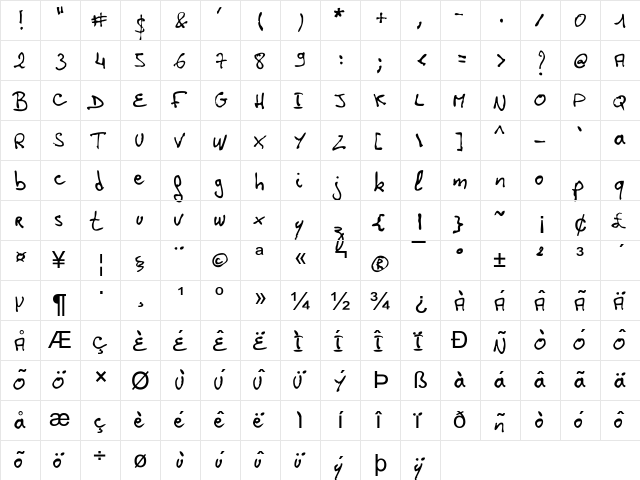
Laurent HW Regular
| Foundry | _n3o_ |
| Designer | _n3o_ |
Design Context for Laurent HW Typeface
Laurent HW takes a measured approach to typography — its balanced proportions and neutral character make it a reliable workhorse for both digital and print work.